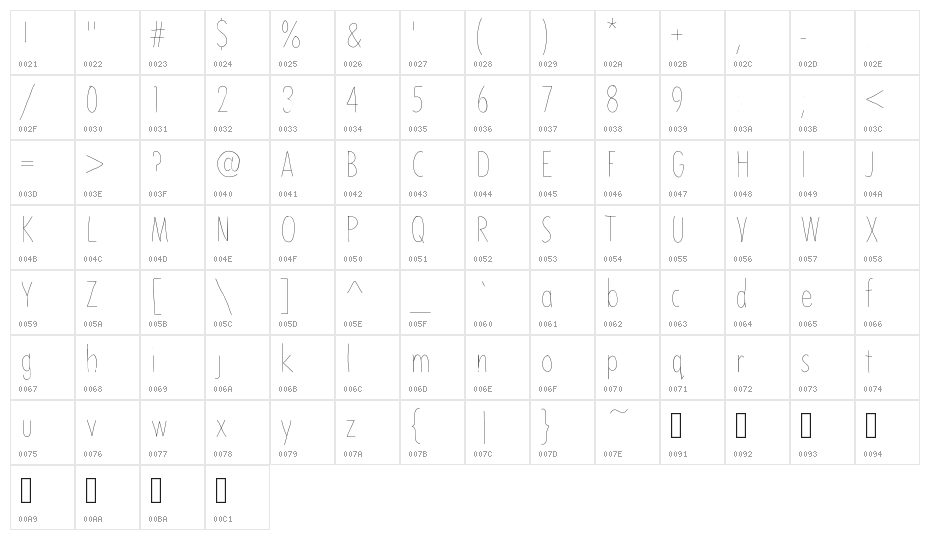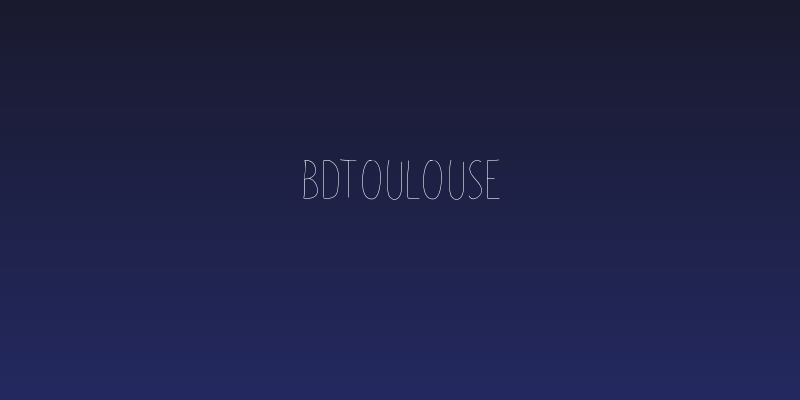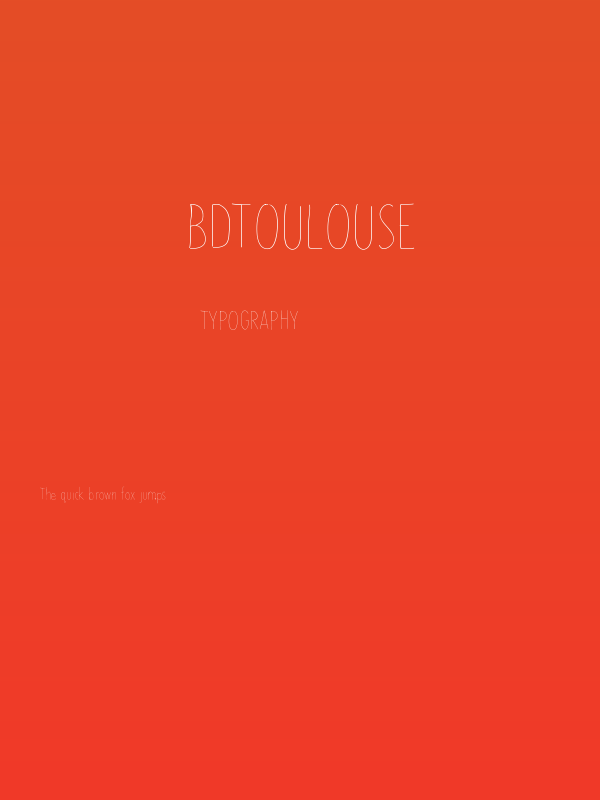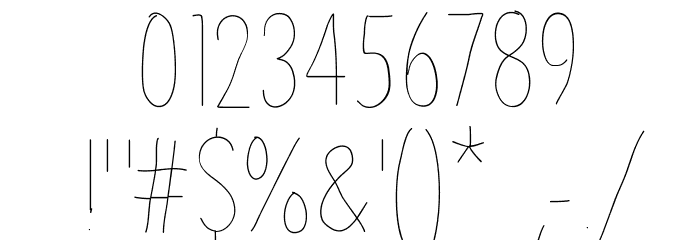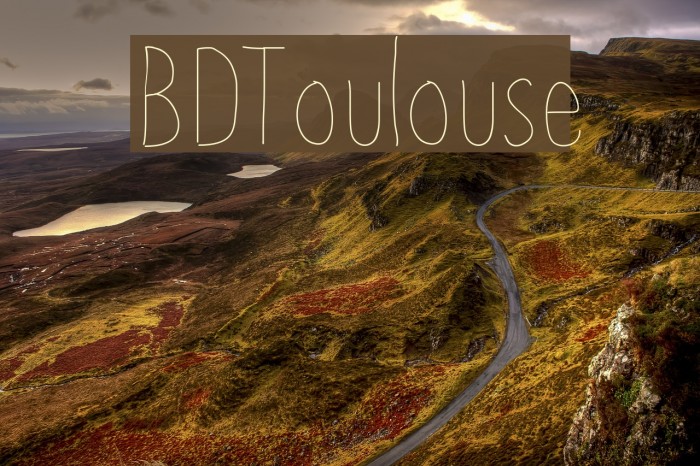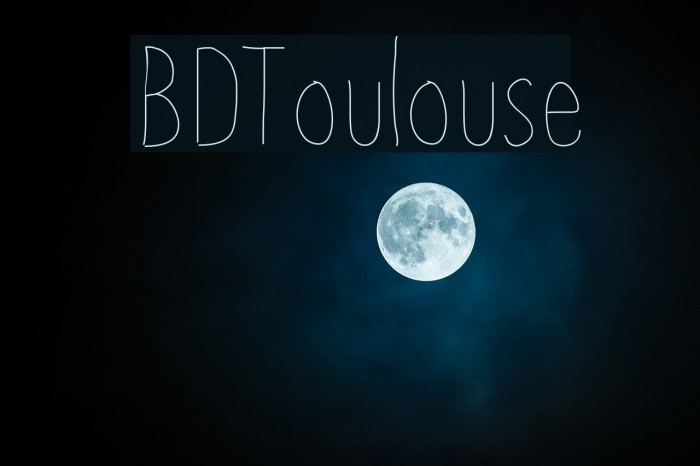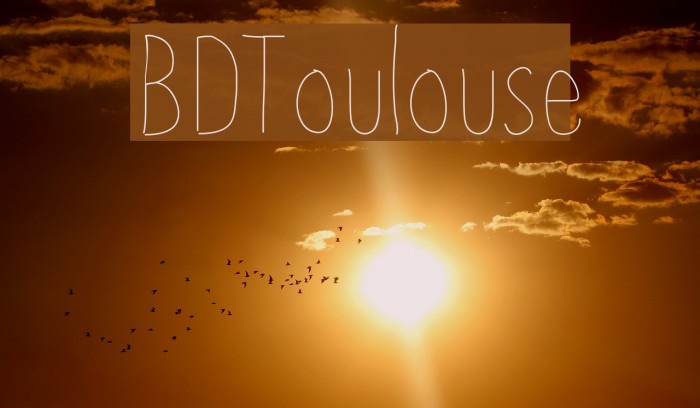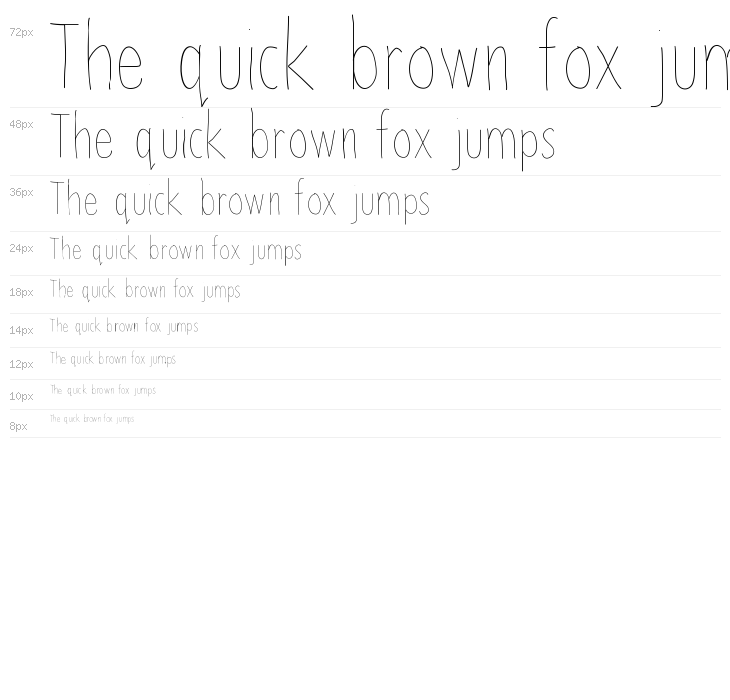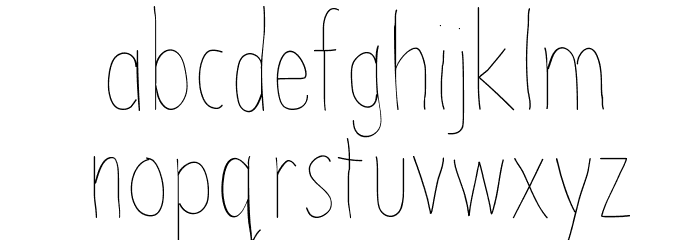
BDToulouse Font
BDToulouse Description
This font features a delicate, hand-drawn style with thin, elongated strokes that give it a whimsical and airy appearance. The characters are slightly irregular, adding a personal and informal touch. The uppercase letters are tall and narrow, while the lowercase letters maintain a consistent height, creating a harmonious balance. The numerals are clear and legible, matching the overall aesthetic. Special characters are included, maintaining the same thin and elegant line work. This font exudes a sense of simplicity and charm, making it suitable for projects that require a personal or artistic feel.
| Use Case | Headlines, Artistic projects |
| Proposed Projects | Ideal for greeting cards, invitations, personal branding, and artistic projects. |